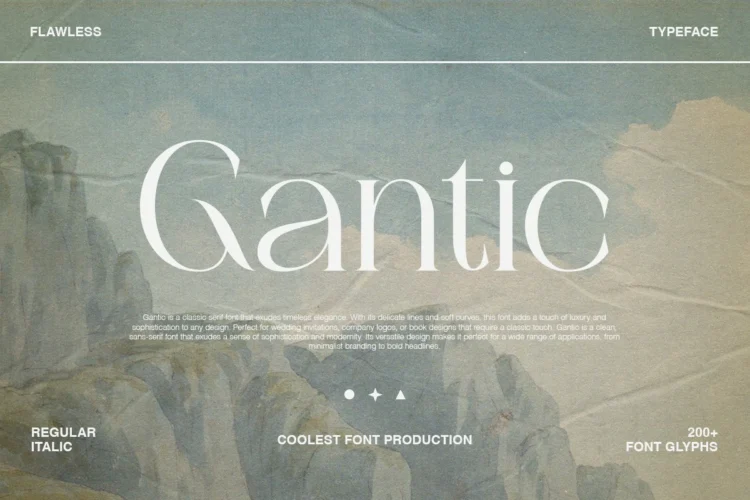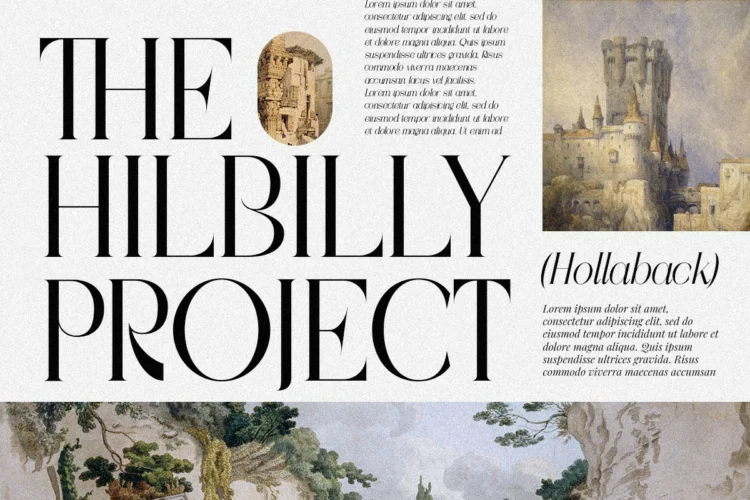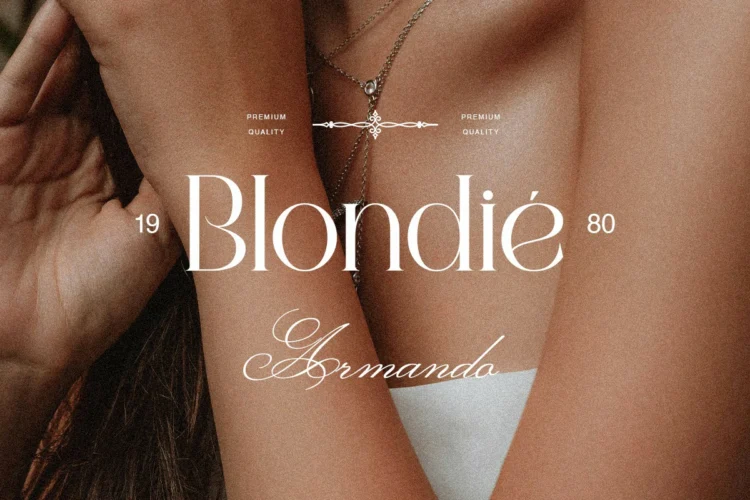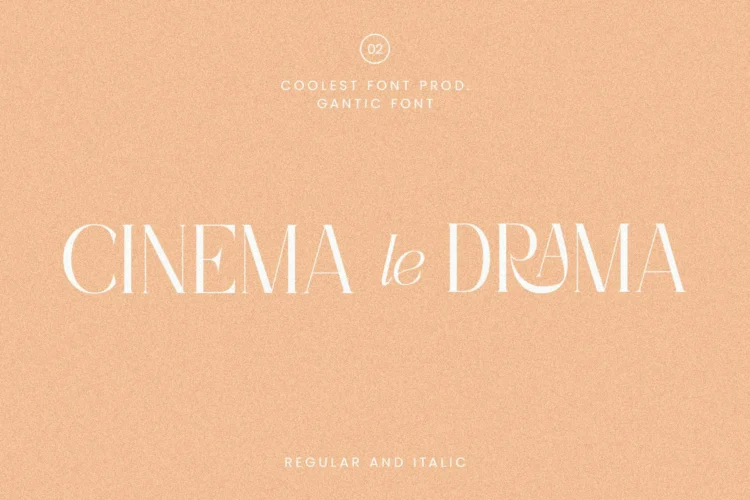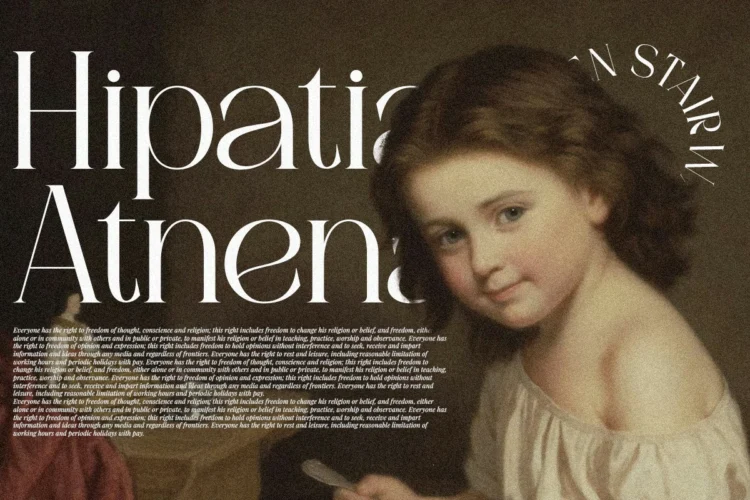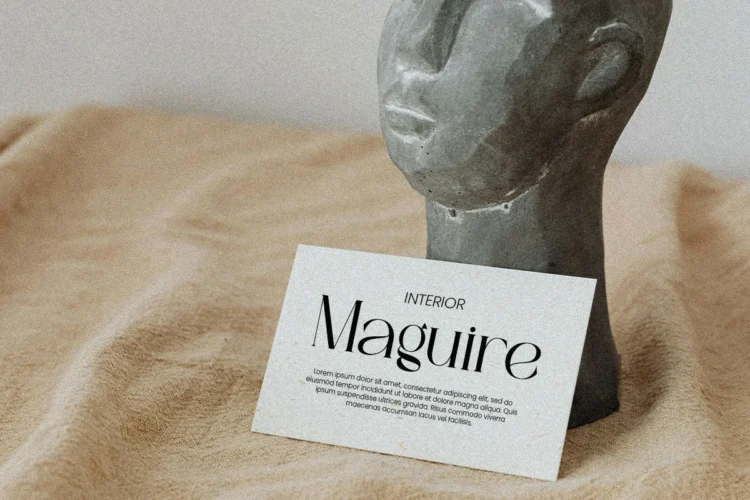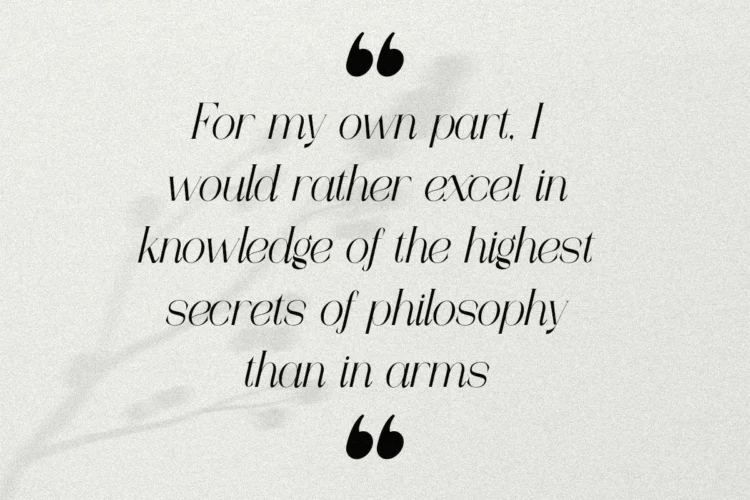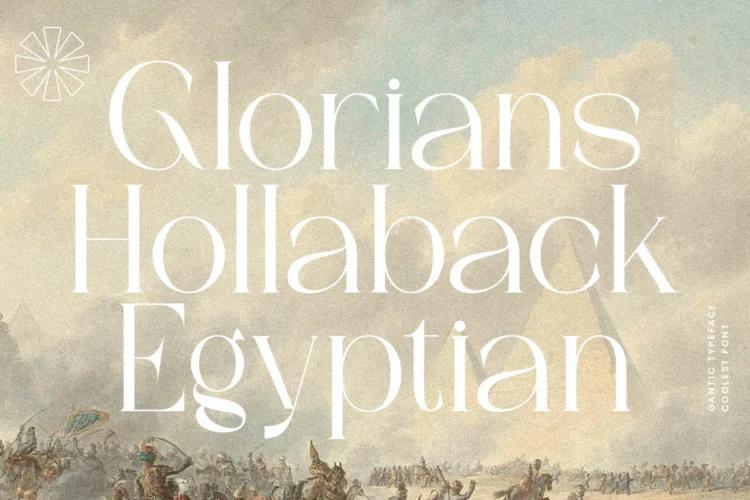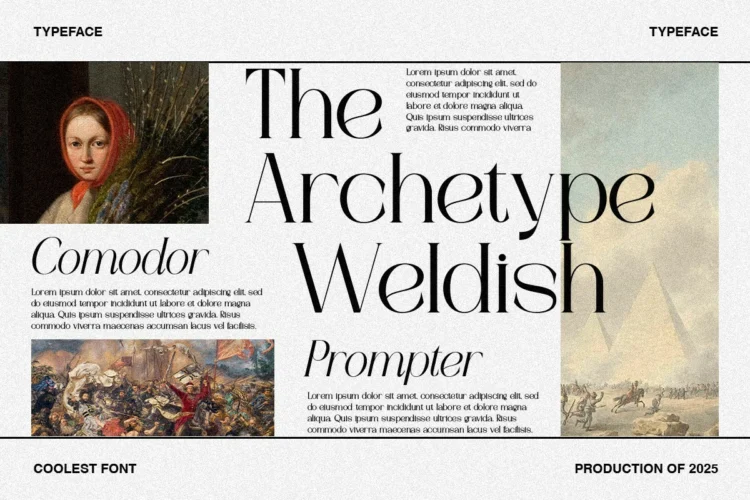
✨ Gantic Font – Elegant Modern Serif Font for Luxury Branding & Timeless Design
Gantic Font is a modern serif font that perfectly blends classic sophistication with contemporary elegance. Designed for creatives seeking a refined yet versatile aesthetic, this display font offers a luxurious charm ideal for professional and artistic applications.
Featuring Regular and Italic styles, along with alternates and ligatures, Gantic Font ensures flexibility and a polished visual flow for any project. Its graceful curves, delicate contrast, and timeless character make it an aesthetic font that adds both warmth and authority.
Gantic Font Included :
- Alternates
- Ligature
Gantic Font is versatile and works beautifully for :
- Logo design and brand identity
- Cosmetic packaging and luxury branding
- Editorials, book covers, and magazine headlines
- Posters, fashion campaigns, and social media visuals
- Wedding invitations and minimalist designs
🎨 Gantic Font Highlights:
- Elegant modern serif font with stylish alternates & ligatures
- Available in Regular and Italic
- Over 200 glyphs supporting versatile typography
- Works beautifully as a display font, branding font, or headline font
Whether you’re crafting an iconic cover font, a striking poster font, or an elegant headline font, Gantic Font provides the balance of modern style and vintage refinement. Its subtle contrast makes it a cool font that stands out in digital and print applications alike.
With its high-end appeal and adaptability, Gantic Font truly shines as a goods font and cosmetic font for brands aiming to communicate luxury, confidence, and beauty through design.